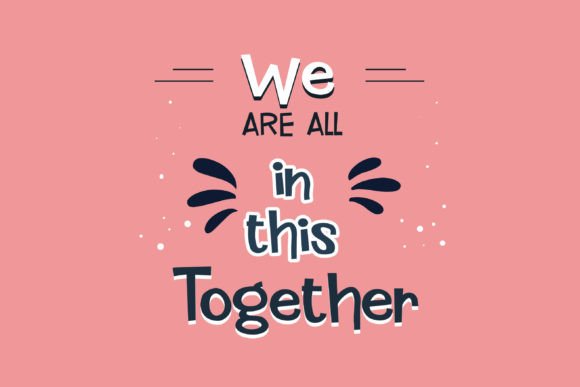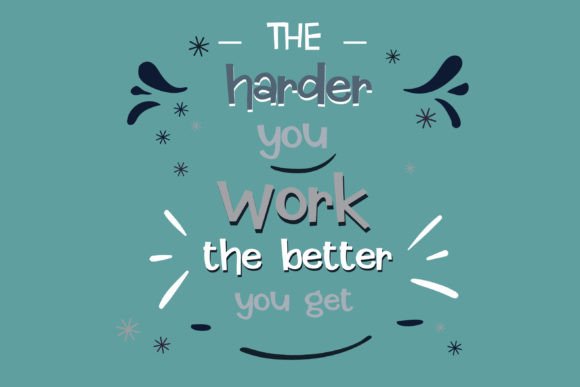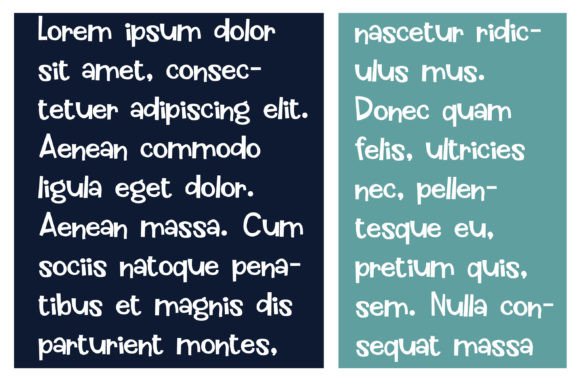
Introduction to Milksoppy Font
Have you ever stumbled upon a design project and felt like your creativity was stuck in neutral? You’ve got a great idea, but the words just aren’t flowing. That’s when I found myself in need of a little pick-me-up, and that’s exactly what the Milksoppy Font provided.
As I began to type out my thoughts, the whimsical handwritten letters of the Milksoppy Font started to dance across the page, bringing my project to life in a way that felt light and carefree. It was like a breath of fresh air, and I couldn’t help but feel grateful for this high-quality design resource.
For designers like us, finding the right font can be a game-changer. It can elevate our projects from good to great, and make all the difference in conveying our message. That’s why I’m excited to share the Milksoppy Font with you, and I’m confident it will become a valuable addition to your design arsenal.
Key Features of Milksoppy Font
- Unique, playful design ideal for creative projects requiring a whimsical touch
- Includes a range of characters, including uppercase and lowercase letters, numbers, and punctuation
- Perfect for designers, artists, and creatives working on projects that require a fun and imaginative touch
Honest Review: Milksoppy Font
I recently stumbled upon the Milksoppy Font while searching for a unique design resource for my creative project. I must say, I was pleasantly surprised by the quality of this free download.
- ✨ High-quality design: The Milksoppy Font has a clean and modern look that’s perfect for a variety of projects.
- ⚠️ Limited character set: The Milksoppy Font only includes a limited character set, which may not be suitable for projects that require a wide range of characters.
- ⚠️ Not ideal for small text: Due to its modern design, the font may not be the best choice for small text, as it can be difficult to read.
Overall, I’m impressed with the Milksoppy Font and would definitely consider using it for future creative projects. Its high-quality design and transparent background make it a valuable addition to any design resource collection.
Tips for Getting the Most Out of Milksoppy Font
Experiment with different font sizes and colors to create visually appealing designs. Use the Milksoppy Font in conjunction with other design resources to create a cohesive and engaging visual identity.
The Milksoppy Font is ideal for creative projects requiring a unique and eye-catching design element. Use it for social media graphics, blog posts, or any other digital design project where a high-quality, custom font is desired.